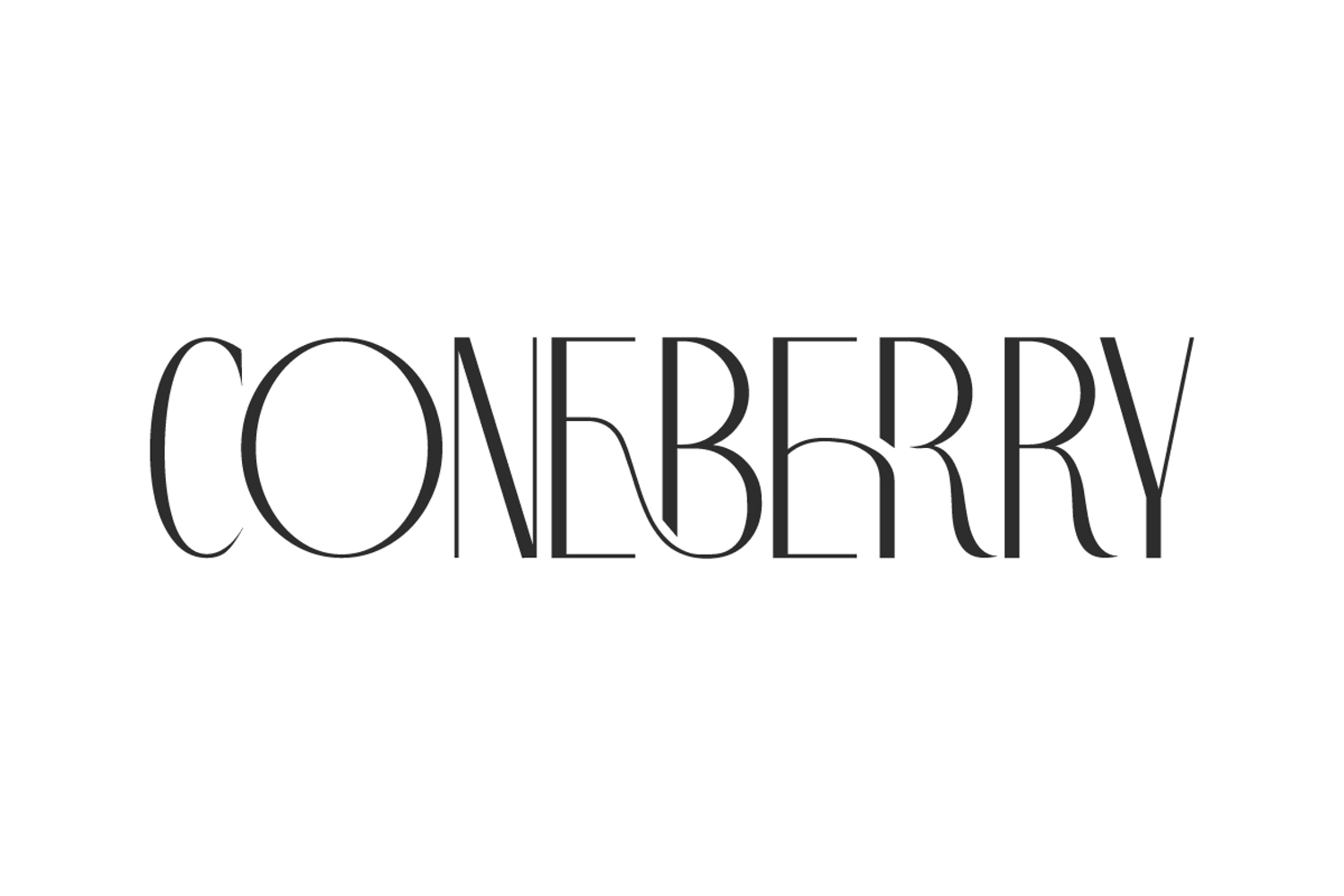
Coneberry
Coneberry Font is a sophisticated display font with a stylish sans serif aesthetic. This simple yet meaningful typeface is chic and sleek featuring a high-contrast sans serif that is thoughtfully designed with a modern feel. This font is recommended for cosmetic, furniture, graphic design, home designer, makeup artist, photographer, real estate, skincare, wedding organizer, and so on.
Coneberry Font includes full set of Uppercase and Lowercase Basic Characters, Numbers, Punctuation, Symbols and Ligature. The typeface is super smooth because it involves extra light shapes but still has optimal readability. This font will look amazing for apps, body text, brochure, cover design, flyer, invitation, label, magazine catalog, menu, mockup, packaging, poster, quotes, stationery, sticker, template, title header, watermark, and so on.